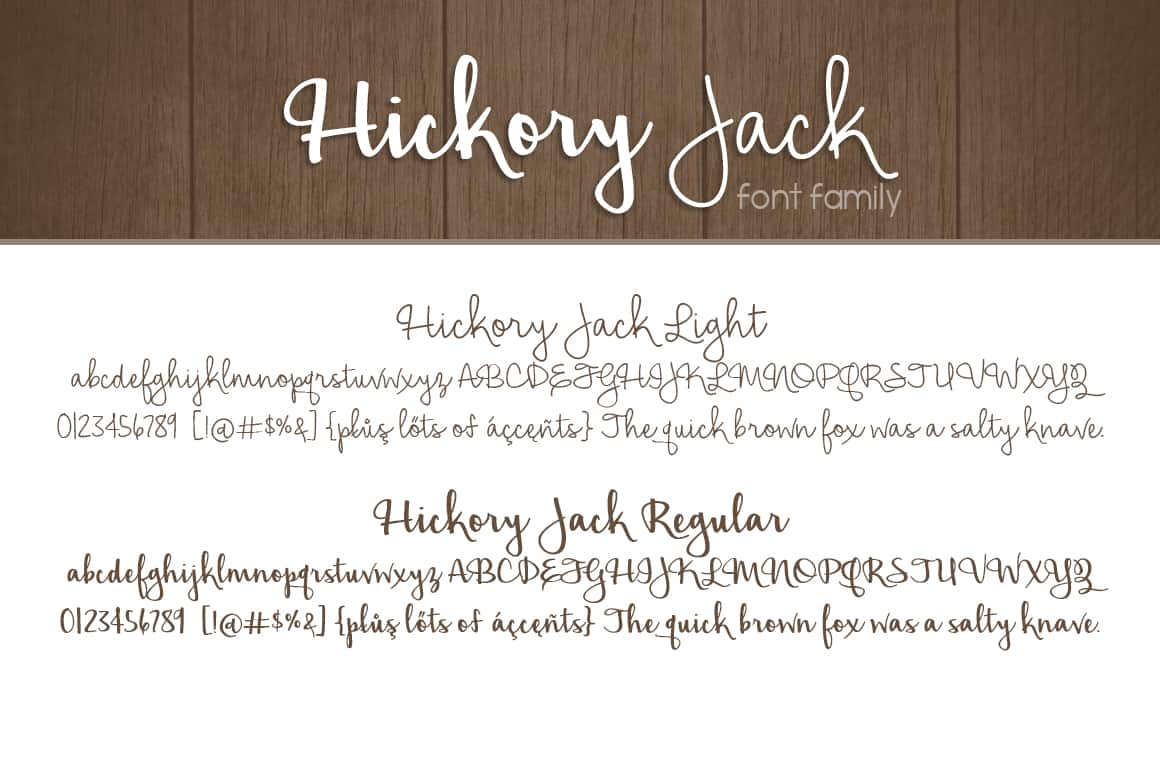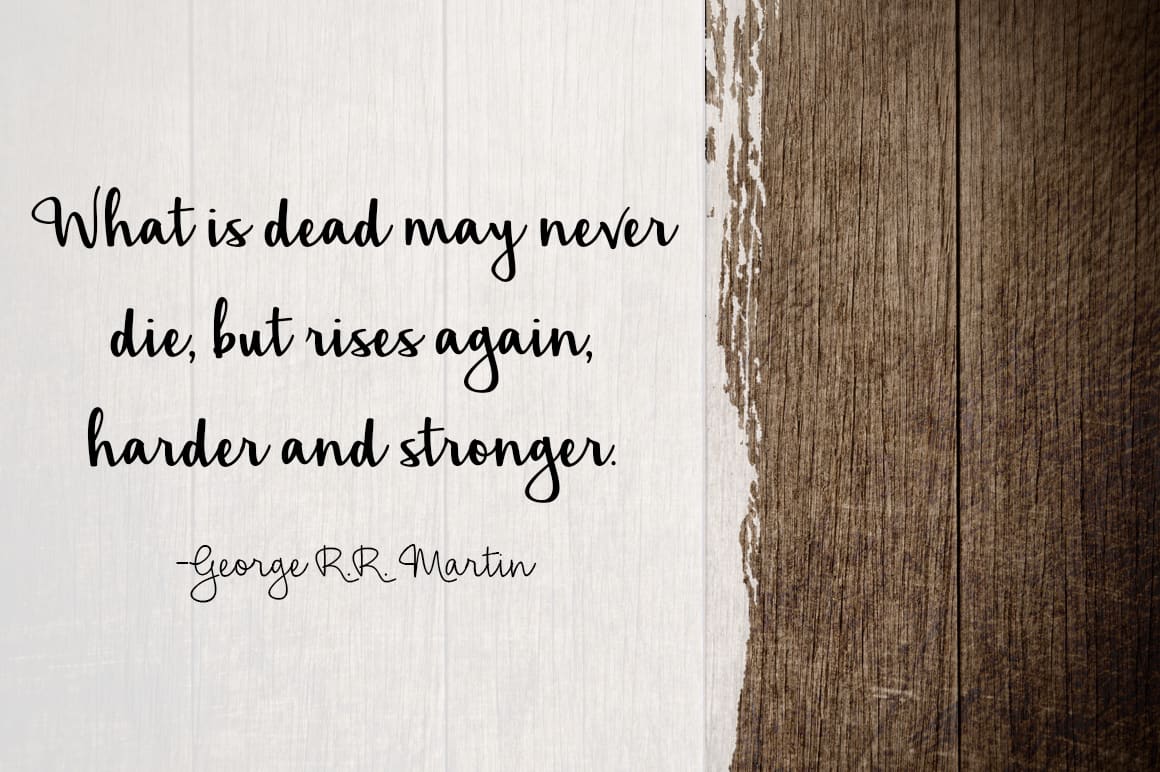
Hickory Jack Font
About the Hickory Jack Font
Hickory Jack font family is a smooth, weighted script created in 2016. Striking, yet legible. Great for both headlines or bylines!